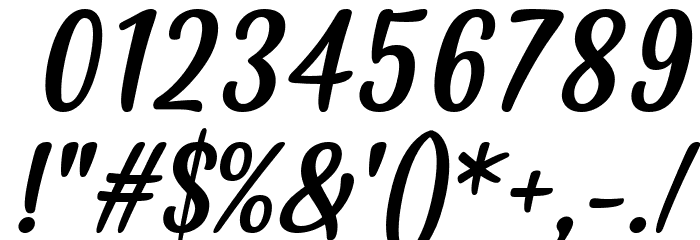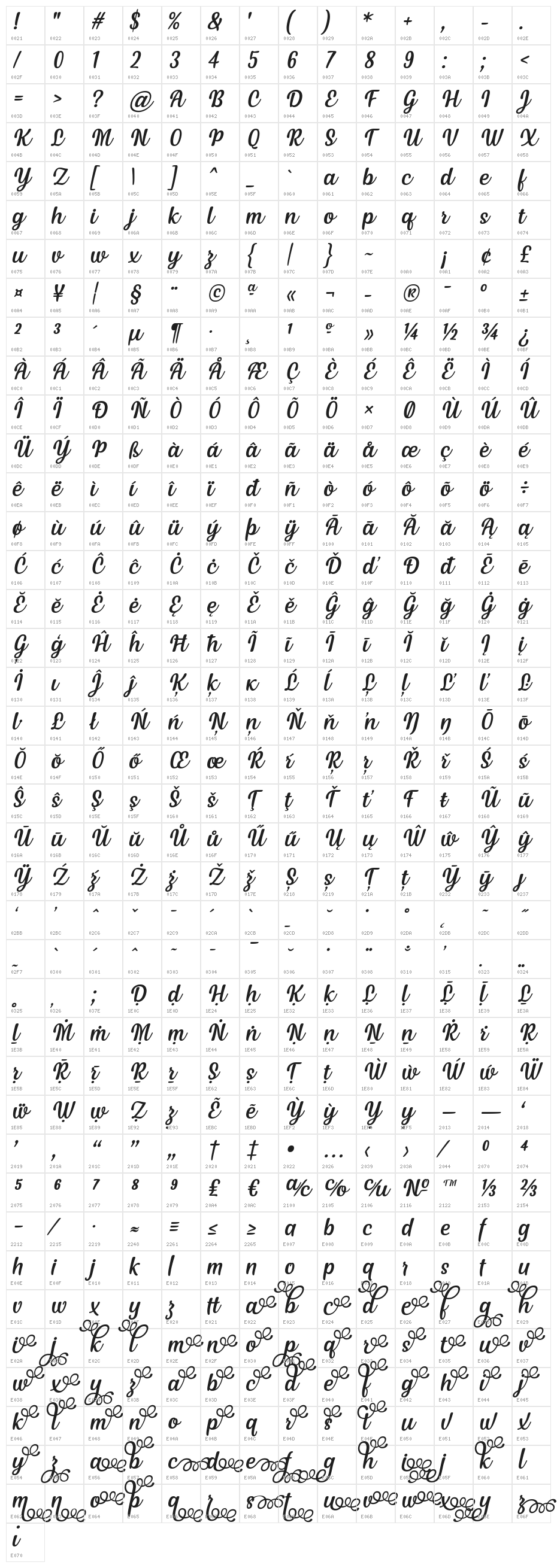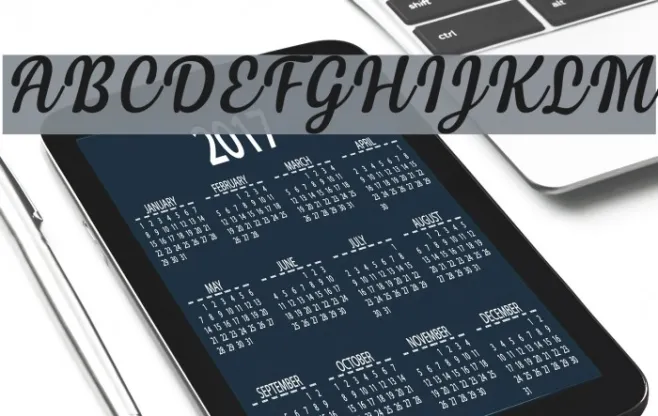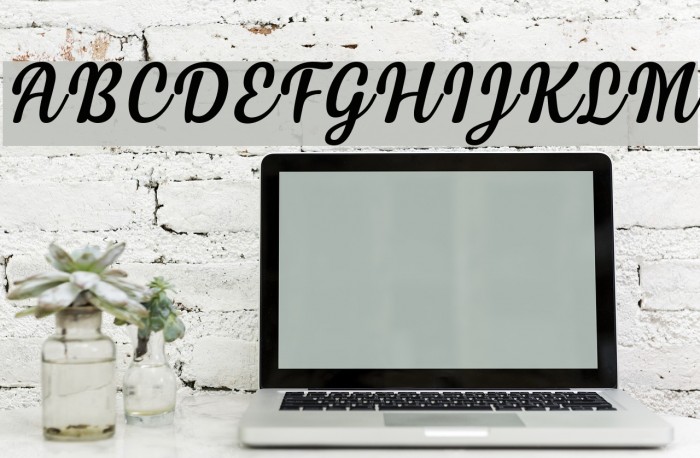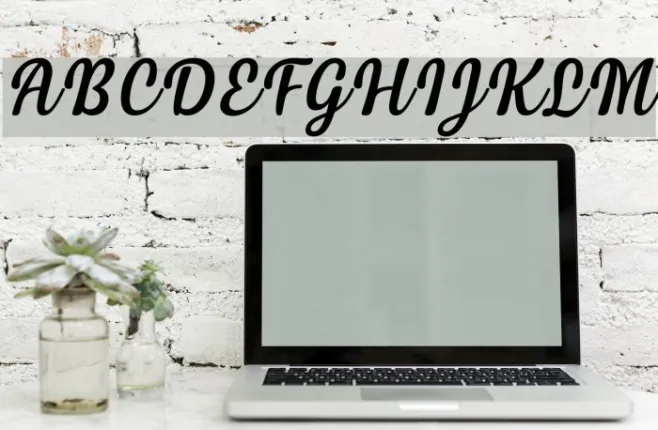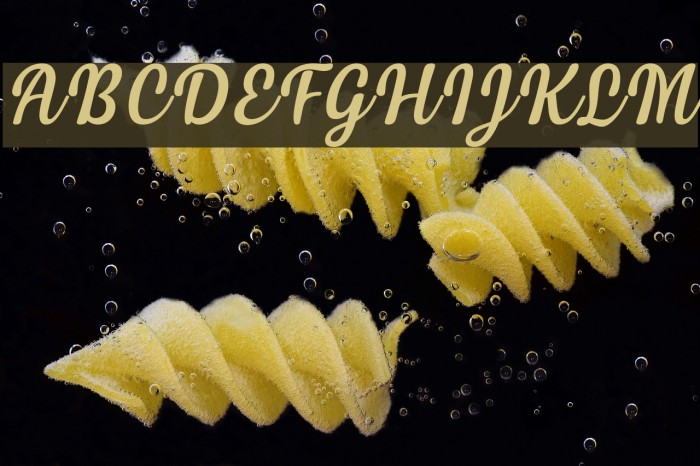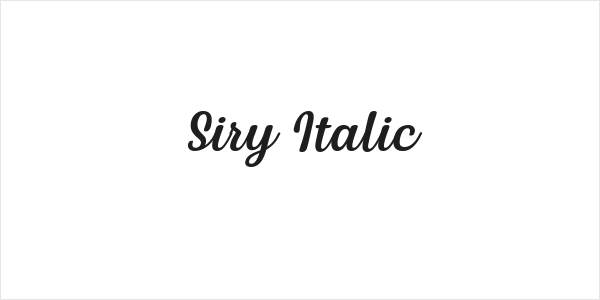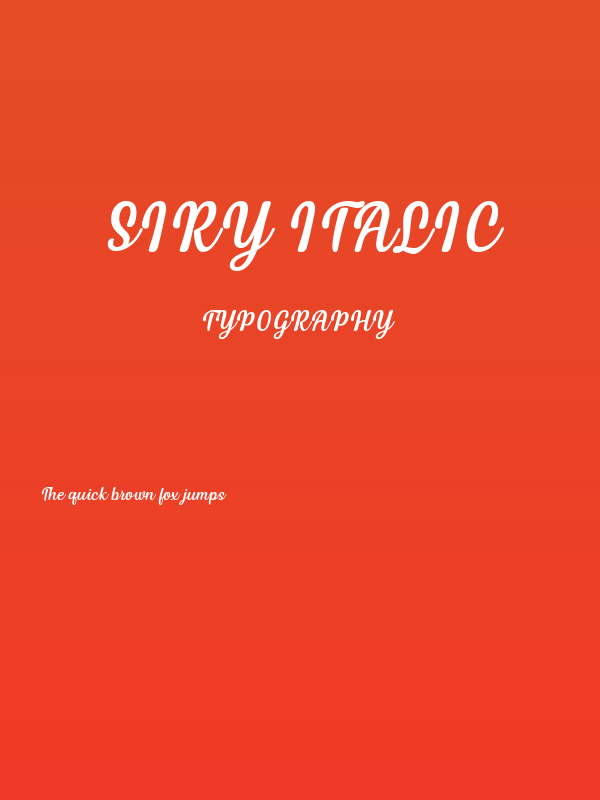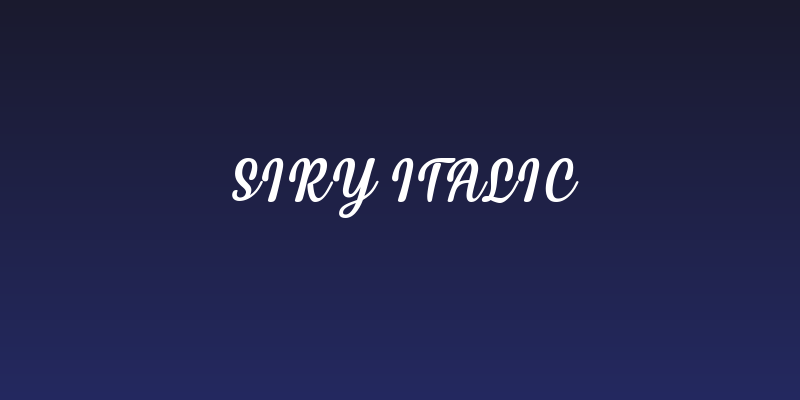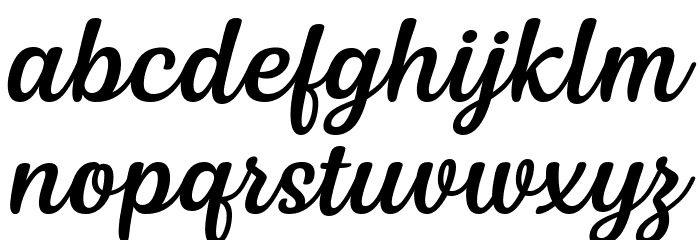
Siry Italic Font
This font features a flowing, cursive style with elegant curves and smooth transitions between letters. The uppercase characters are bold and slightly slanted, giving a dynamic and sophisticated appearance. The lowercase letters maintain a consistent flow, enhancing readability while retaining a stylish flair. Numbers are clear and well-defined, matching the overall aesthetic. Special characters are thoughtfully designed to complement the letterforms, ensuring a cohesive look across all text elements. This font exudes a sense of elegance and modernity, making it suitable for various creative applications.
Use CaseLogos, Headlines, Invitations
Proposed ProjectsIdeal for wedding invitations, branding, logo design, and elegant stationery.